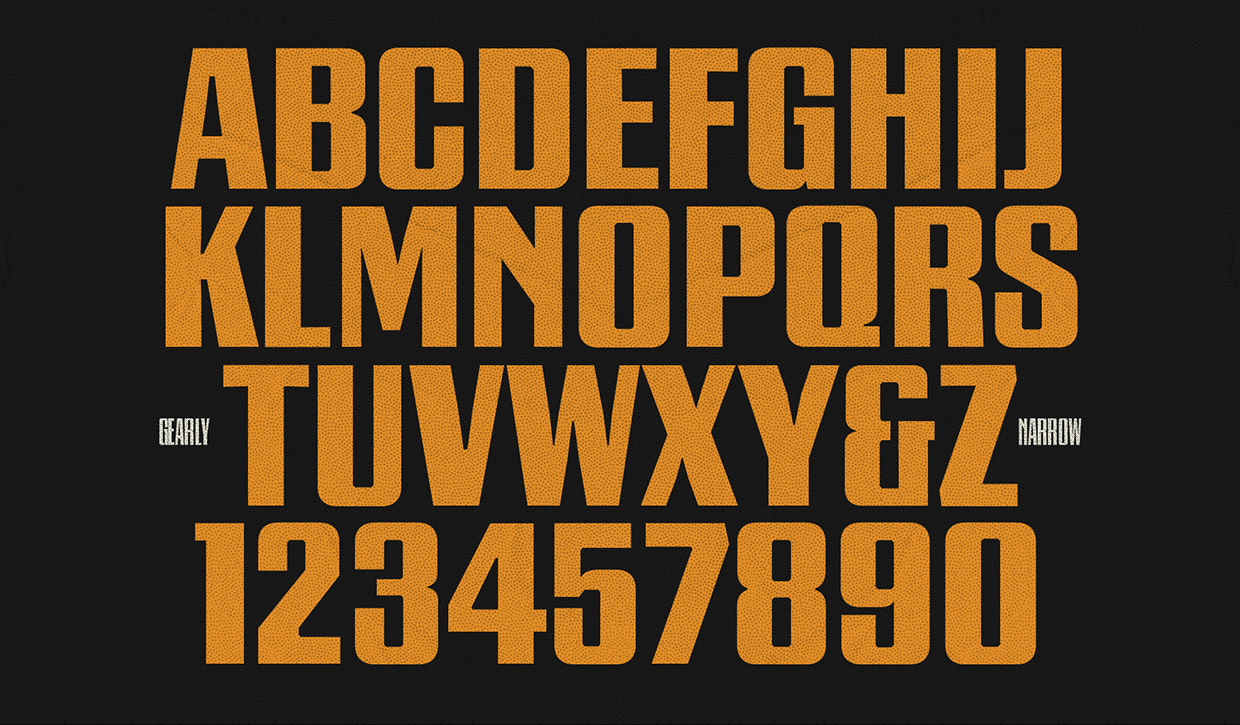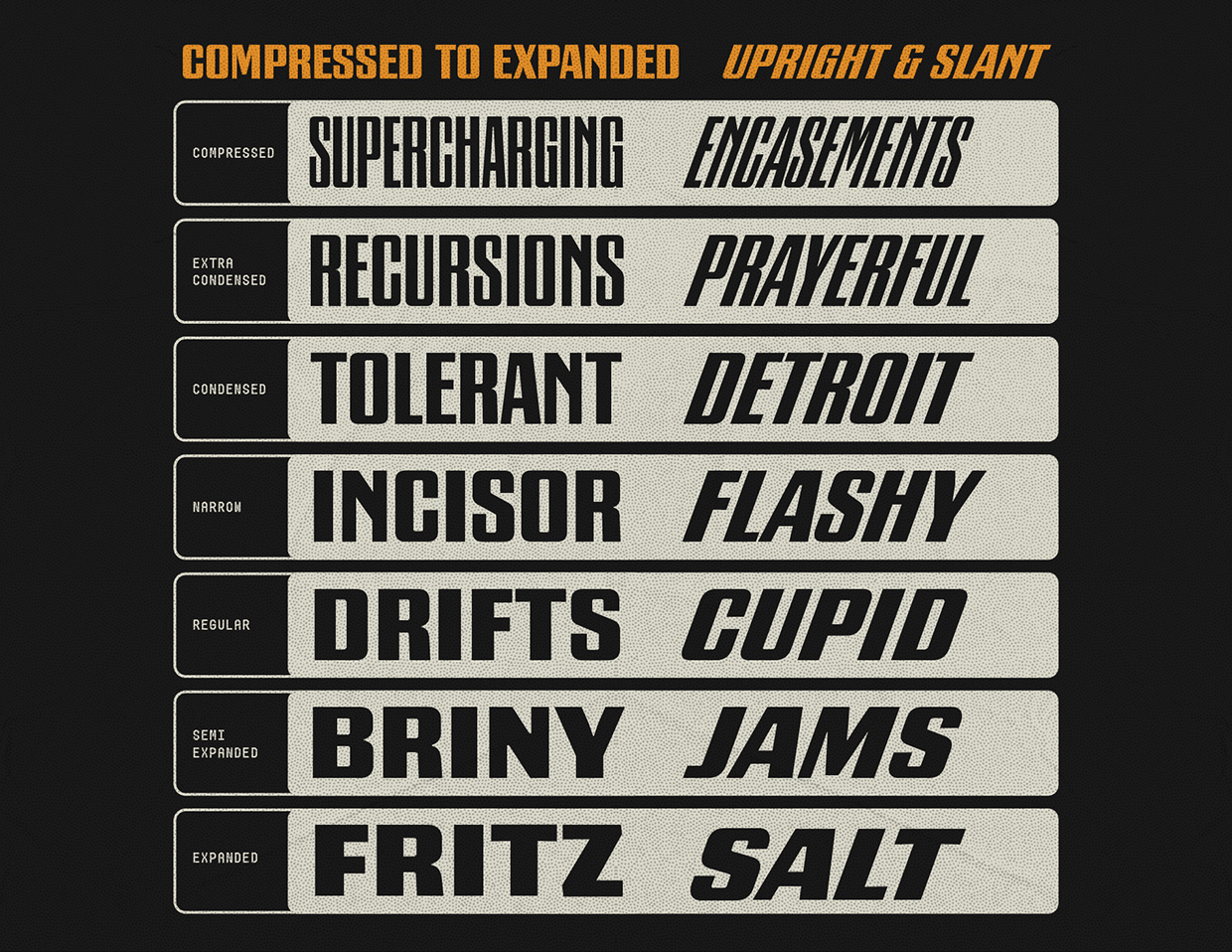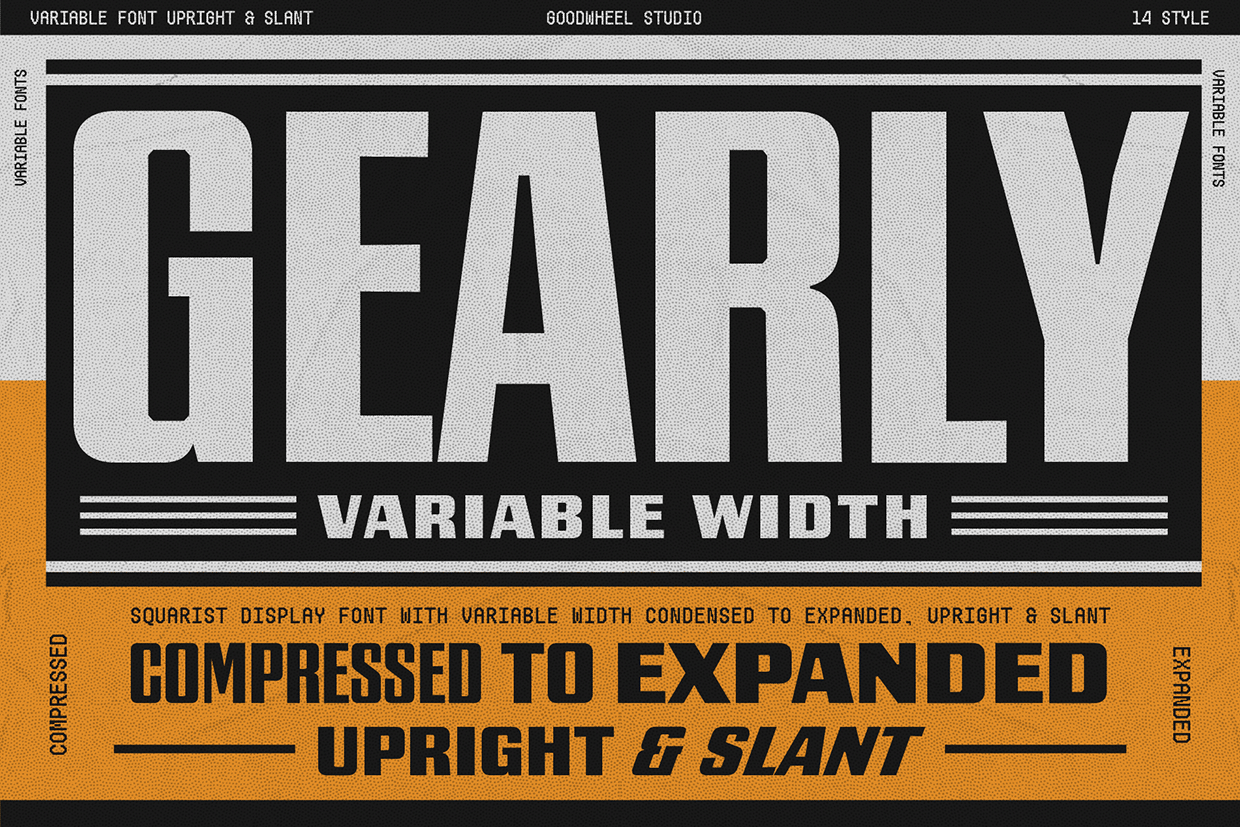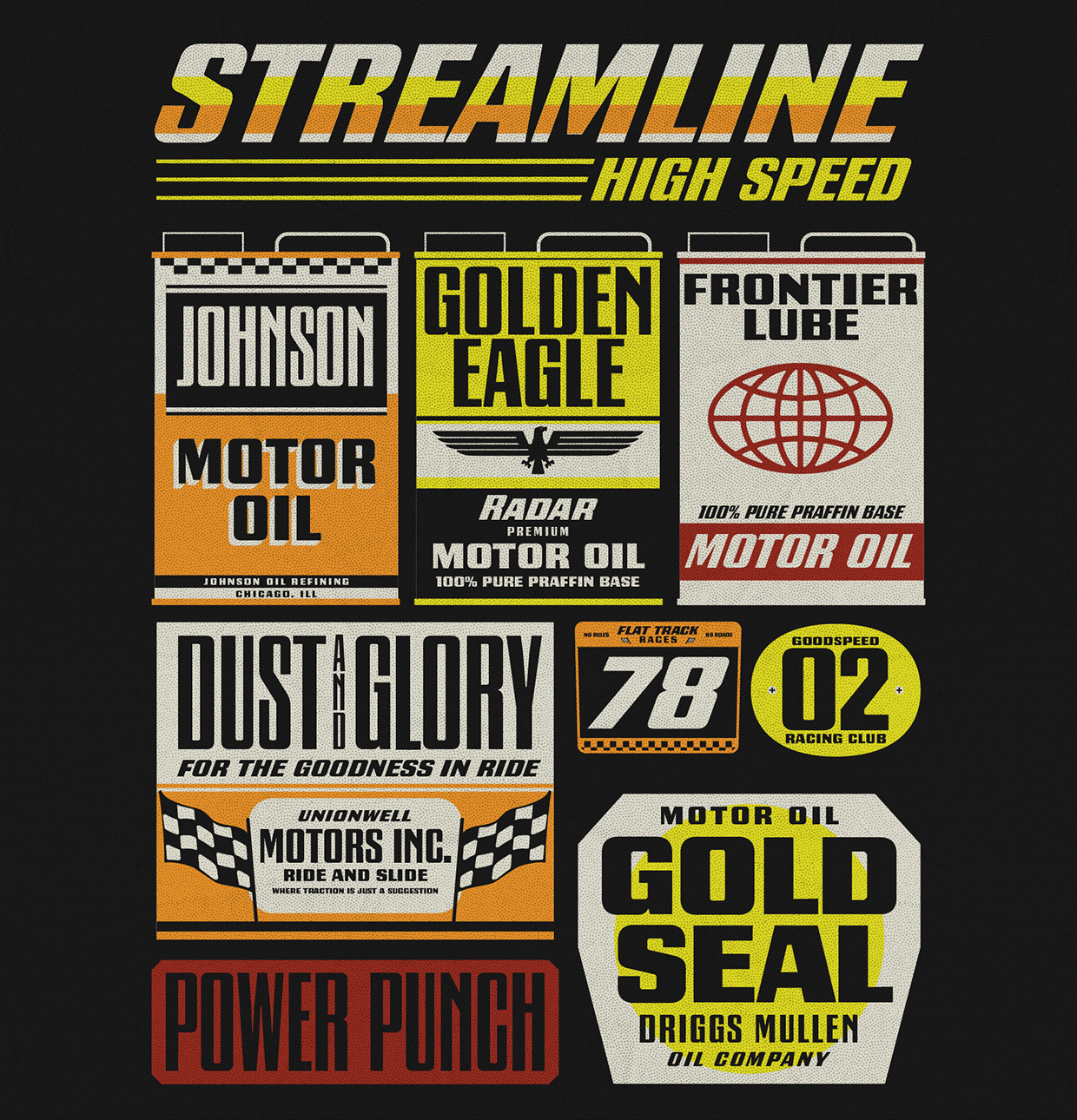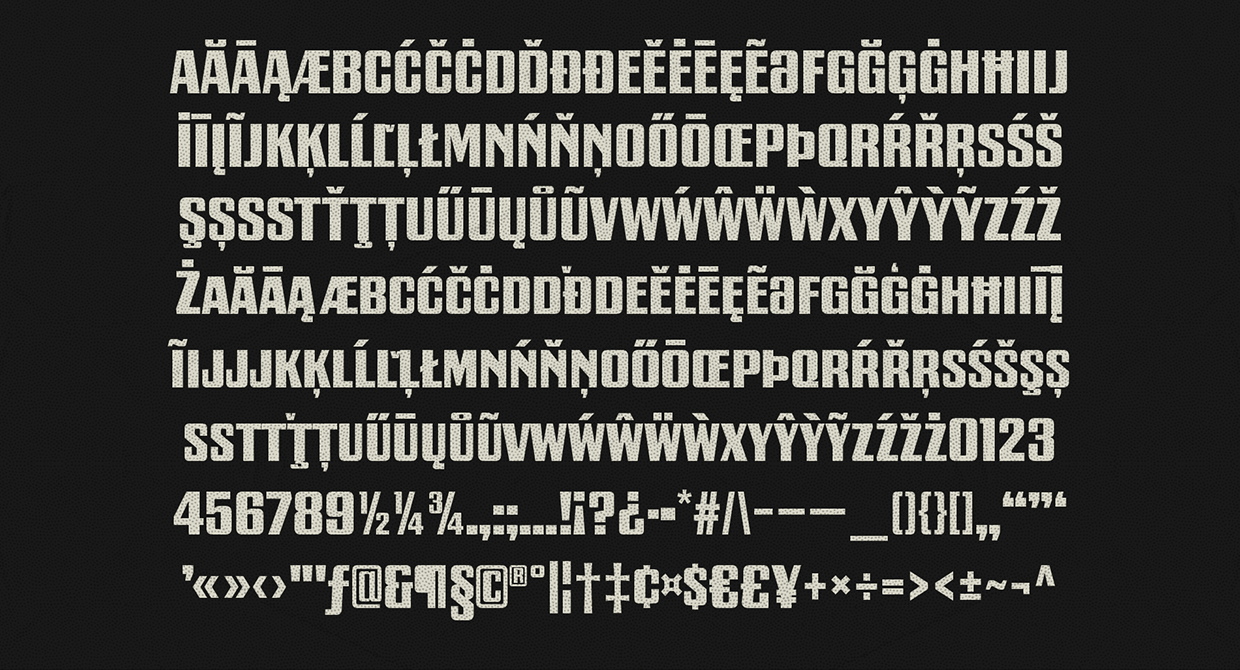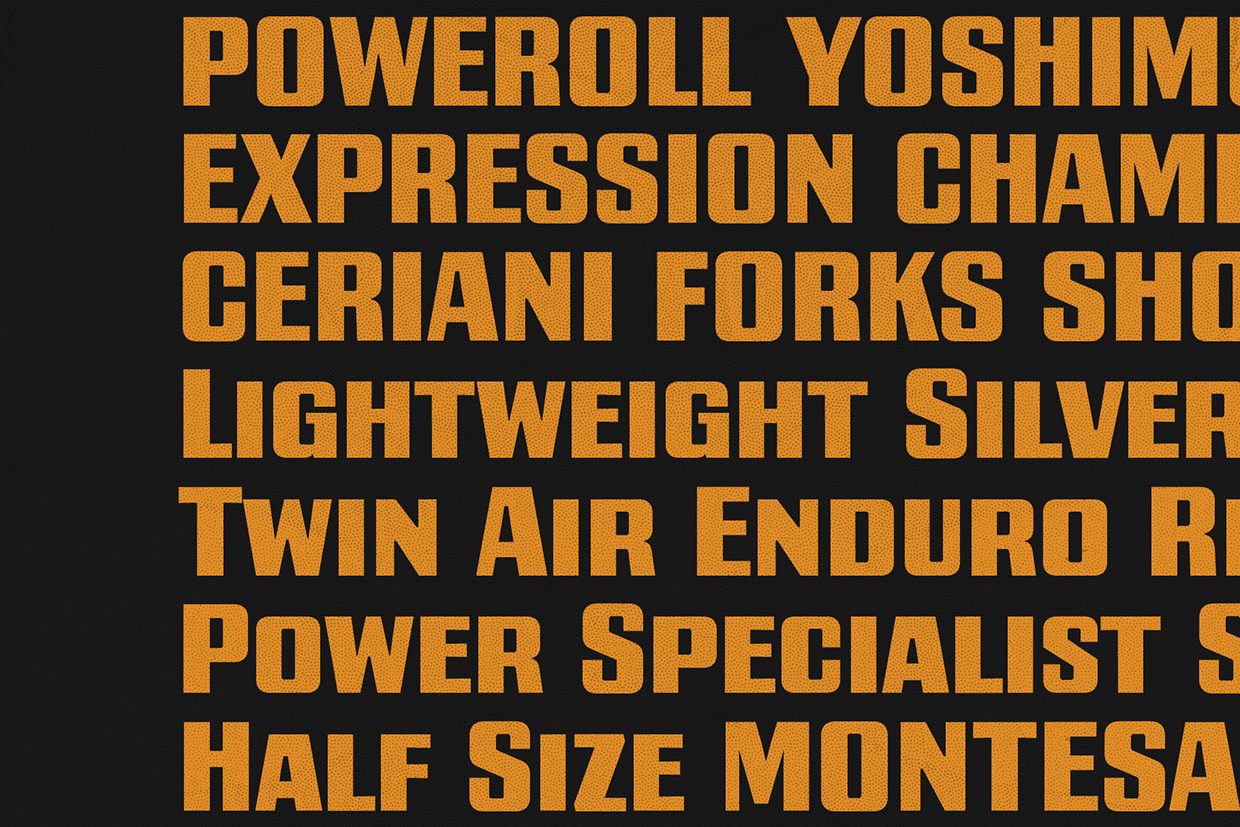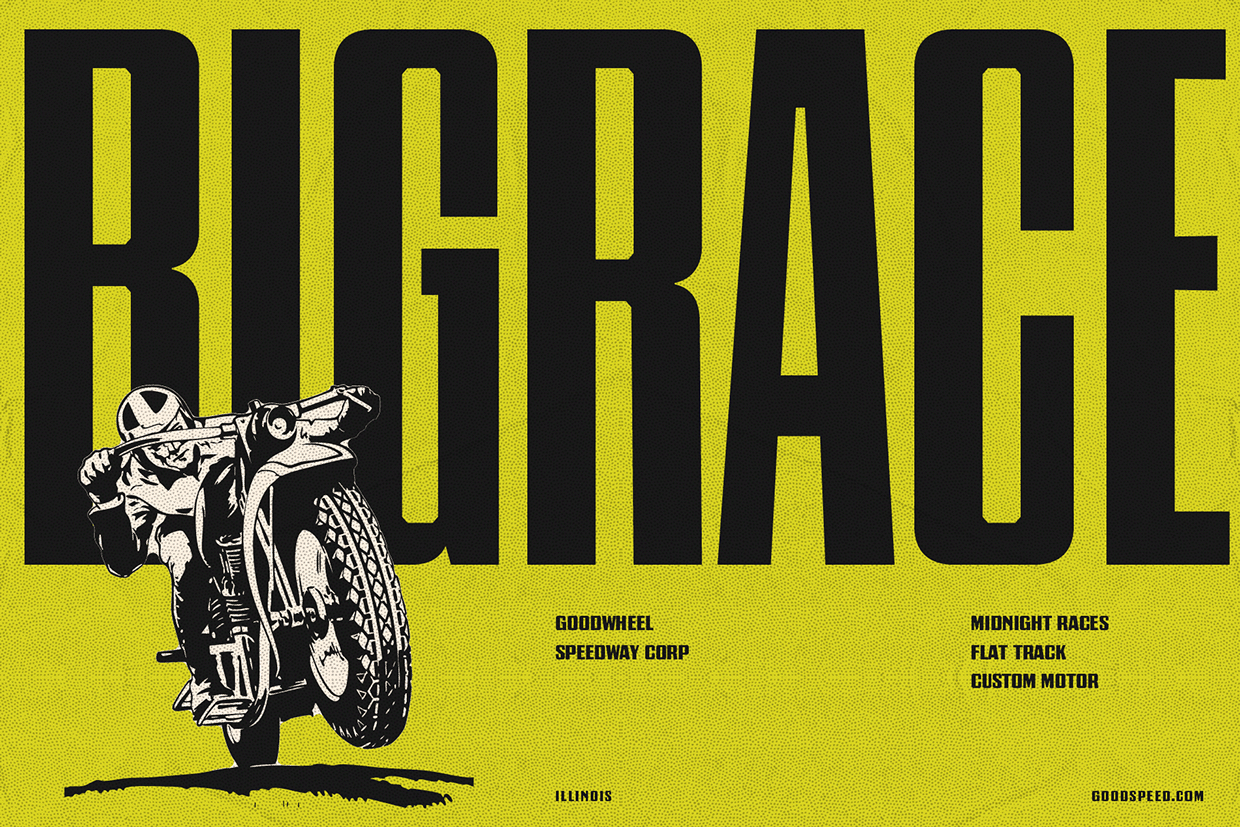
Gearly Variable Font
Bold square display typeface built for strong visual impact. It comes in 14 styles, from Compressed to Expanded, each available in a Slant version for added flexibility.